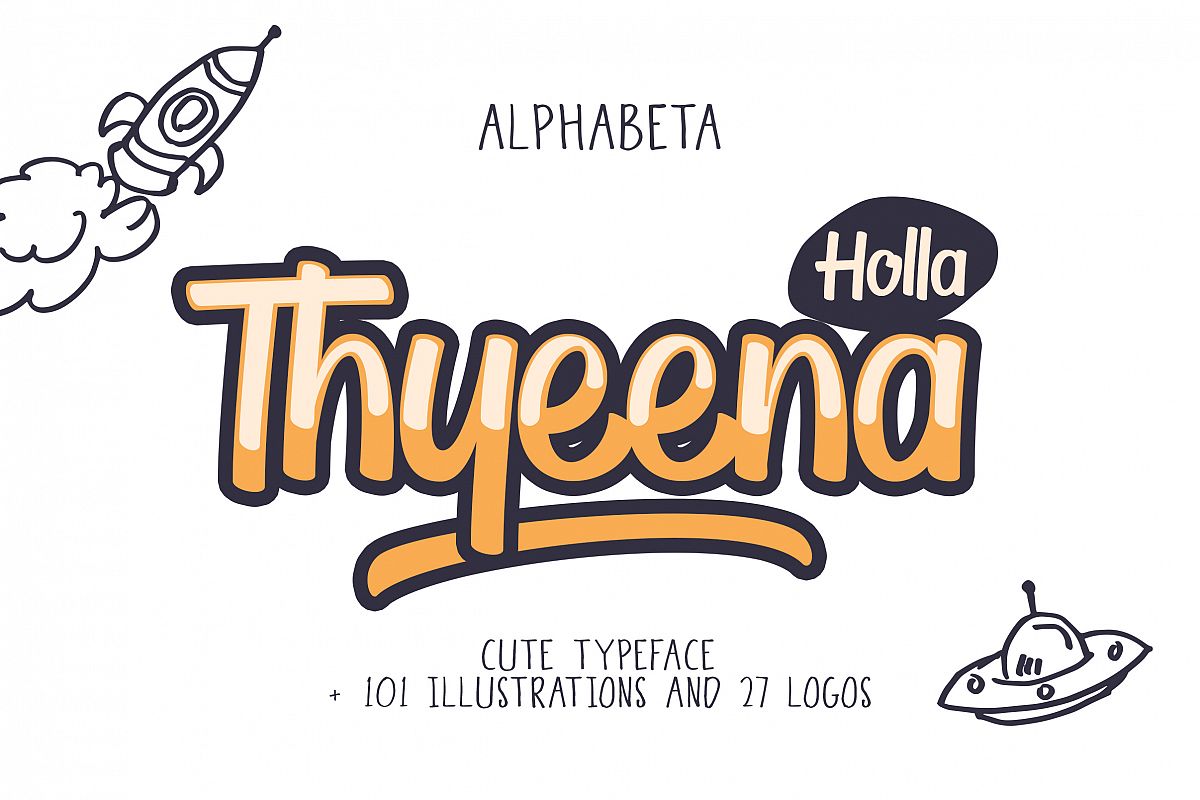
Thyeena Fonts & Illustration
Thyeena Bounce Rounded
Thyeena Bounce
Holla!!! Say Hi to Thyeena
A cute pack font with doodles from my younger sister. Illustrated vectors and pre-design logos, easy to use, and simple for create your own design.Make Your Own Logos Thyeena pack also include 27 free logos template. Mix and Match them with the selection of illustration to make a lot of logo combination.